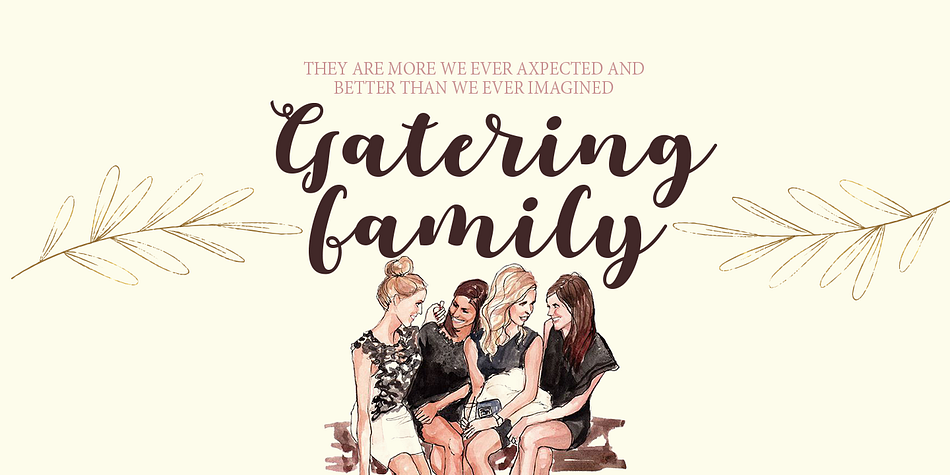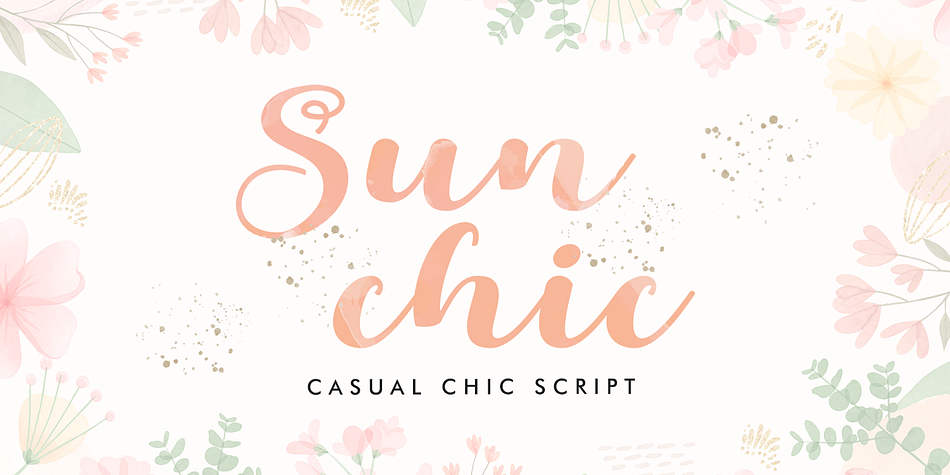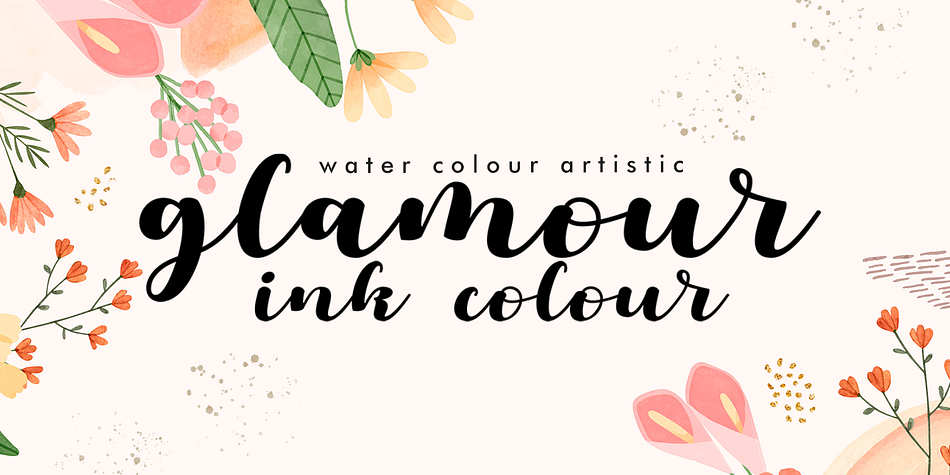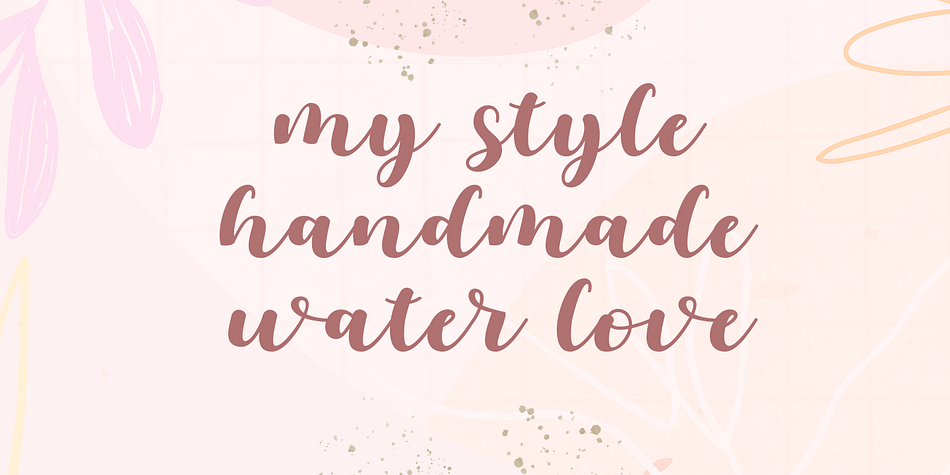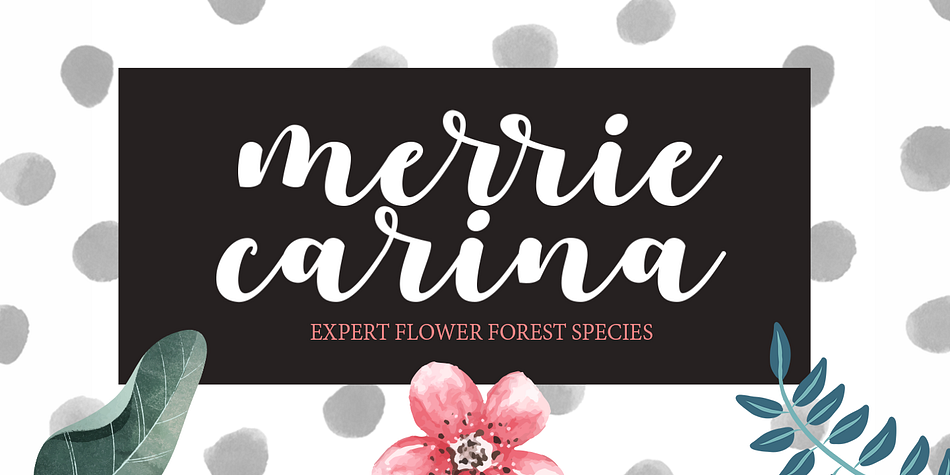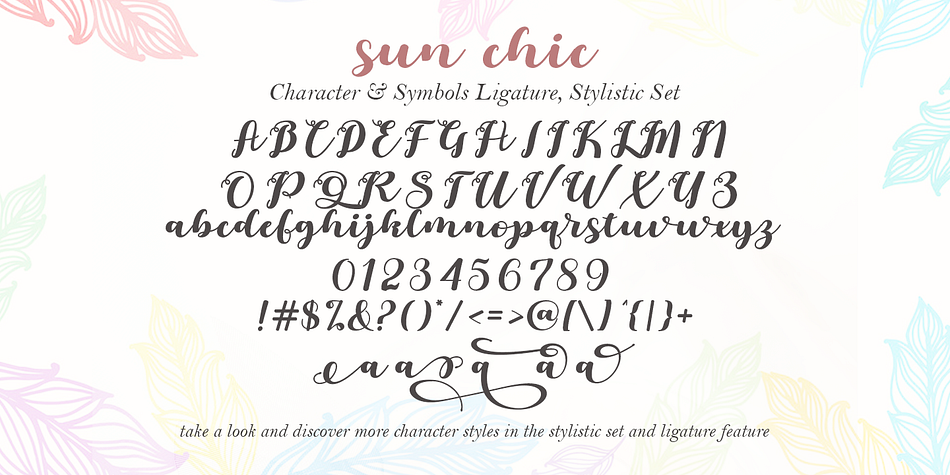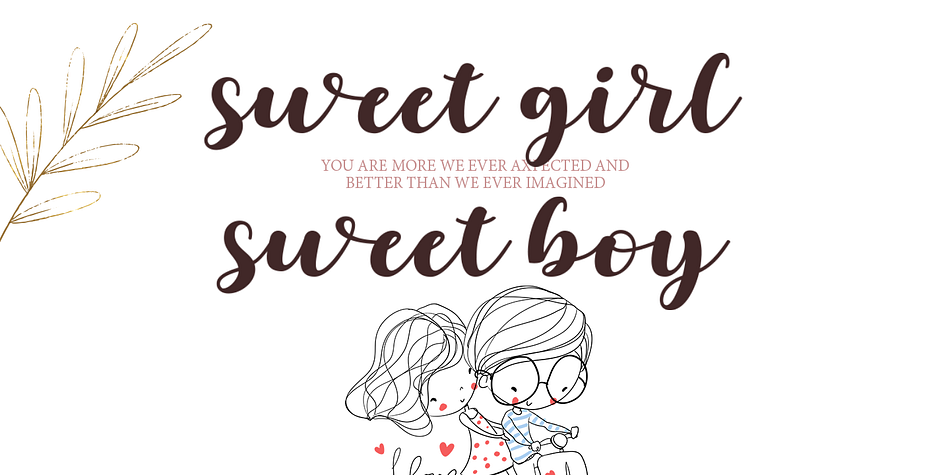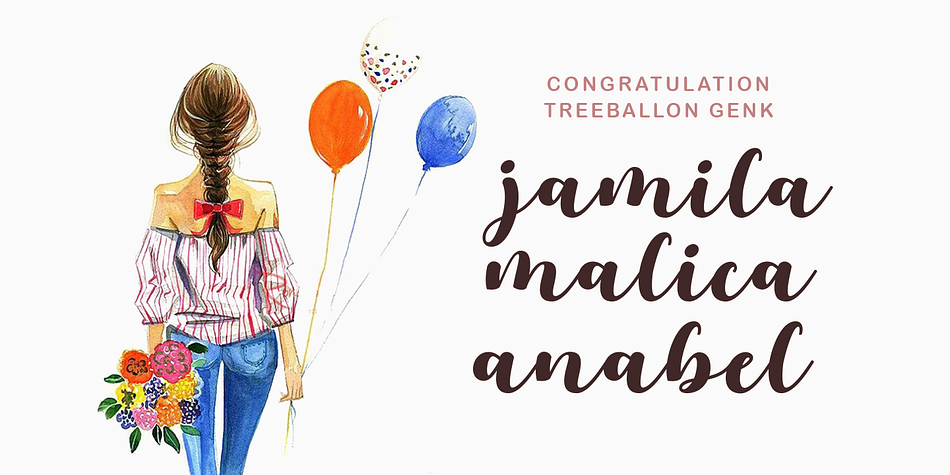
Sun Chic
Sun Chic is a modern calligraphy font family published by Gatype.
Sun Chic Bold Script Font, suitable for branding water color, invitations, stationery, wedding designs, social media posts, advertising, product packaging, product design, labels, photography, watermarks, special events, and many more.
Sun Chic including OpenType Stylistic alternates, ligatures and international language support.